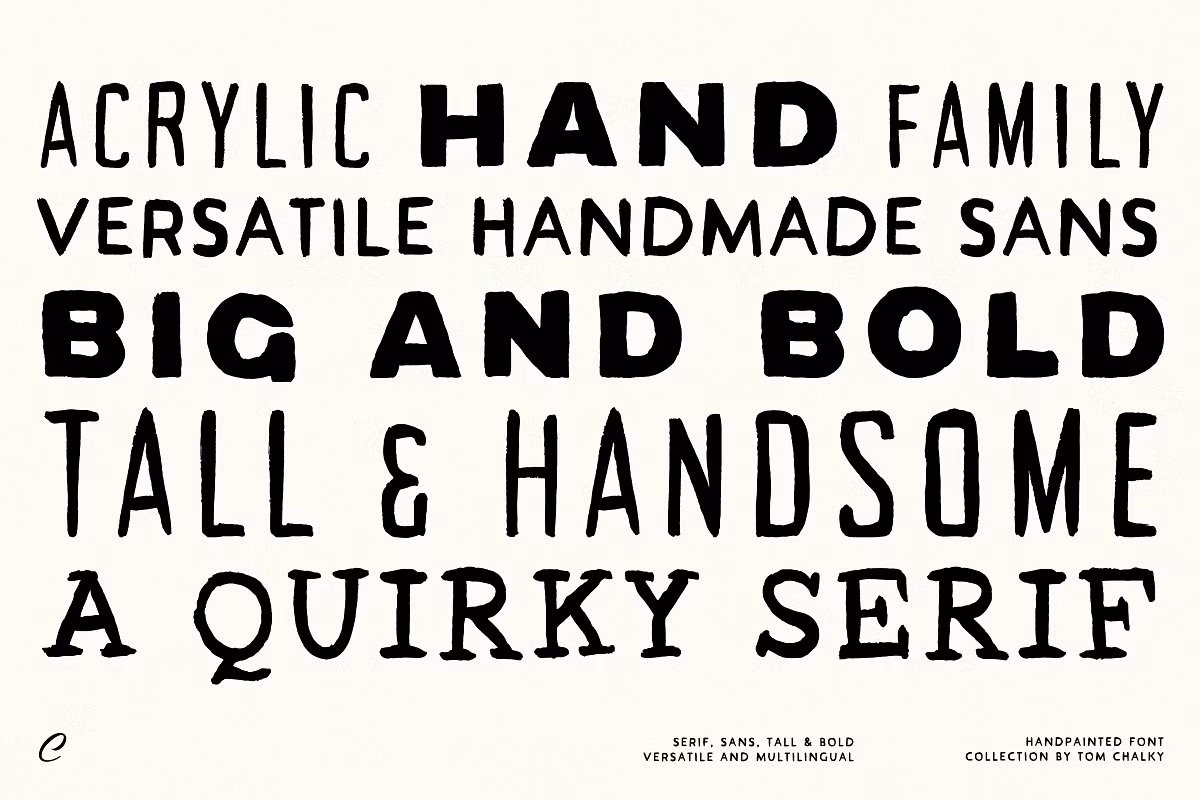
Brush Font Collection - Acrylic Hand Free Download is a bold and expressive set of typefaces that mimic the raw texture and fluid strokes of real acrylic brushwork. Perfect for eye-catching headlines, poster designs, social media graphics, and product packaging, this font collection captures a handcrafted energy that brings your text to life with vibrant personality.
Each letterform has been designed to maintain the authentic feel of brush painting, giving your designs a creative, artsy edge. Whether you’re working on a bold ad campaign or a stylish apparel brand, this font adds a punch of originality and movement to your work.